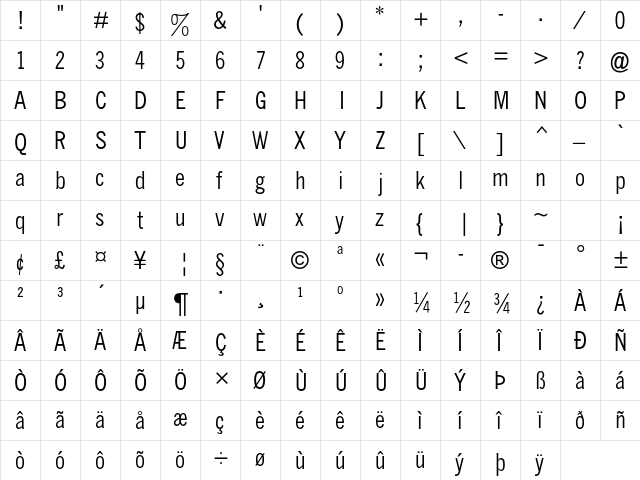
News Gothic MT Std Condensed
Design Context for News Gothic MT Std Typeface
News Gothic MT Std has the quiet confidence of well-executed sans-serif typography: versatile, unobtrusive, and dependable at any size. The condensed width makes it efficient for tight spaces without sacrificing legibility.
Font Pairing: Works well alongside a characterful serif or display font that can carry the expressive load while News Gothic MT Std handles the functional copy.
Pro Tip: Try News Gothic MT Std in all-caps with moderate tracking for navigation and label copy — it performs well in systematic UI contexts.